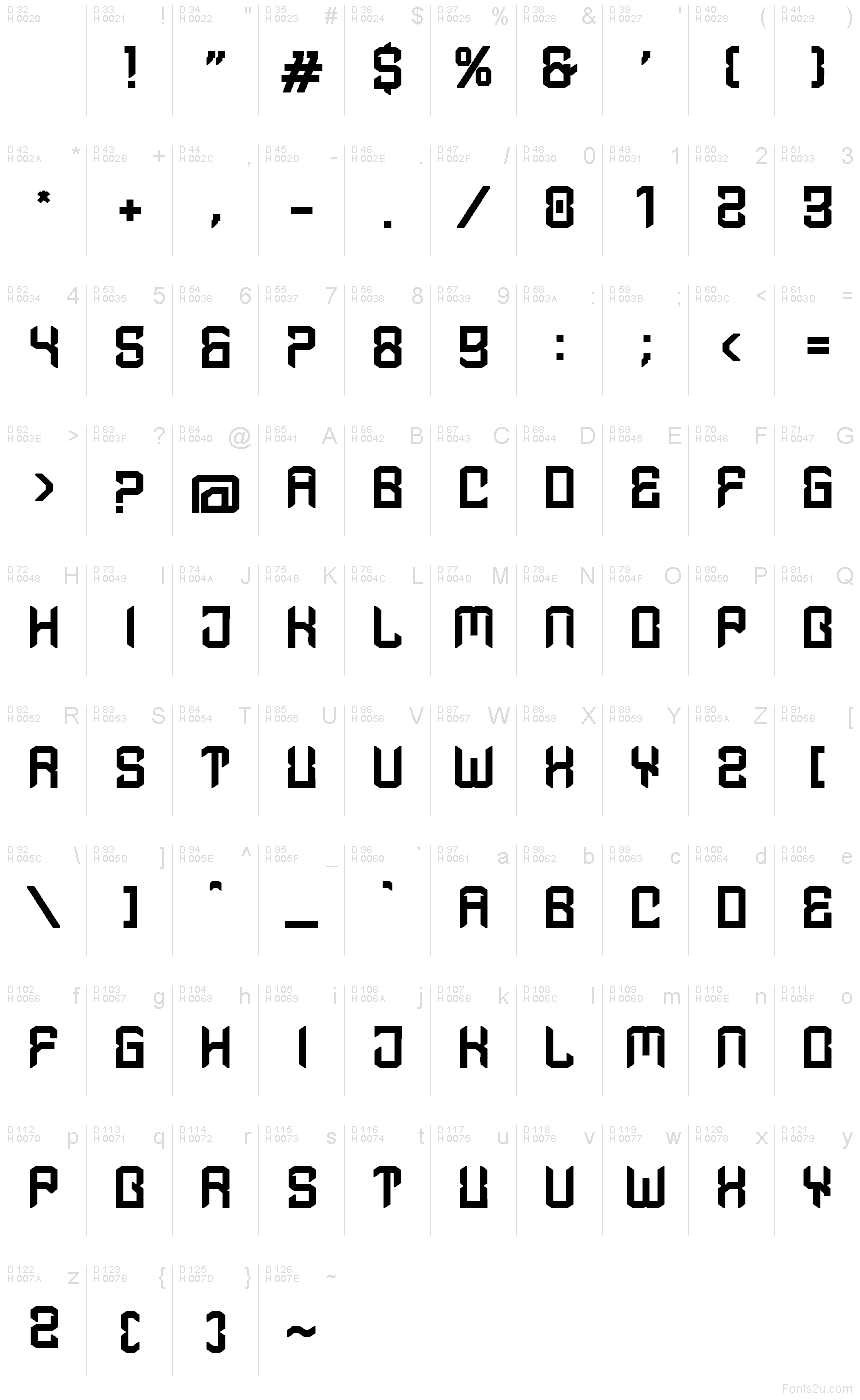
Xultrans
Xultrans font by Dhabee Studio is a free futuristic display font that looks like it was cut from sheets of black metal. Thick verticals, sharp inner corners, and squared curves lock together in a tight, almost mechanical rhythm, giving every word a sense of armored structure. The letterforms feel both alien and engineered, like a sci-fi script translated into bold Latin shapes.
Using Xultrans, headlines instantly snap into a strong, sci-fi identity that stands out on game logos, esports branding, tech event posters, YouTube thumbnails, album covers, and streetwear graphics. This free font thrives at large sizes where its angular facets can breathe. Pair it with a clean geometric sans for supporting text to keep layouts readable while letting Xultrans handle the heavy, futuristic impact.